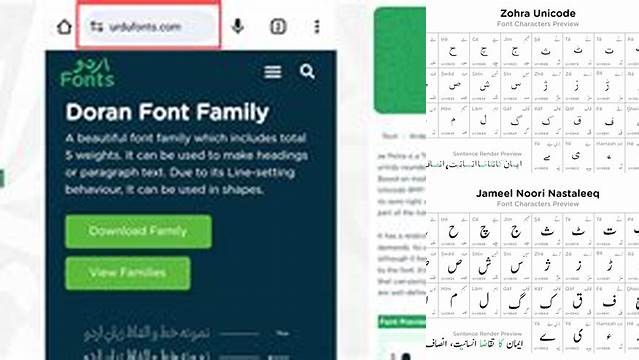
Free Urdu Fonts: Download The Best Typefaces Now!
Hey guys! Are you on the lookout for some amazing Urdu fonts for your projects? Well, you've landed in the right place! In this comprehensive guide, we'll dive deep into the world of Urdu fonts, exploring the best options available for free download. Whether you're a designer, a student, or simply someone who loves the beauty of the Urdu script, this article will provide you with all the information you need to enhance your creative endeavors. Let's get started!
Why Urdu Fonts Matter
Before we jump into the nitty-gritty of free downloads, let's take a moment to understand why Urdu fonts are so important. The Urdu language, with its rich literary and cultural heritage, is written in a beautiful script that adds a unique aesthetic appeal to any design. Choosing the right font can significantly impact the readability and overall visual appeal of your work. A well-chosen font can convey the intended message effectively, evoke emotions, and create a lasting impression on the audience. In essence, the font you select is the voice of your text, and in the case of Urdu, it’s a voice that carries centuries of history and artistic expression.
Moreover, Urdu is not just a language; it's an art form. The intricate curves and elegant strokes of the Urdu script make it a favorite among calligraphers and designers alike. A suitable font captures this essence, preserving the authenticity and charm of the language. Think about the impact of a beautifully designed Urdu title on a book cover or the elegance of an Urdu quote displayed in a digital graphic. The right font elevates the entire composition, making it more visually appealing and culturally resonant.
For those involved in publishing, web design, or graphic arts, having a diverse collection of high-quality Urdu fonts is essential. It allows for greater flexibility and creativity in projects, ensuring that the final product not only looks professional but also respects the linguistic and cultural nuances of the language. Whether you're designing a poster, creating a website, or writing a document, the font you choose can make or break the final outcome. Therefore, understanding the importance of Urdu fonts and having access to a variety of options is crucial for anyone working with the language.
Individual Designers and Foundries: Many independent designers and foundries offer free fonts as a way to showcase their work. Websites like Behance and Dribbble can be great places to discover these hidden gems. By supporting independent creators, you not only get access to unique fonts but also contribute to the growth and diversity of the design community. When downloading from individual sources, make sure to check their licensing terms carefully.
When exploring these resources, it's a good idea to have a clear idea of what you're looking for. Do you need a font for headlines, body text, or decorative purposes? Are you aiming for a traditional or modern look? Having a specific goal in mind will help you narrow down your search and find the perfect font for your project.
Popular Urdu Fonts for Free Download
To get you started, let's take a look at some popular Urdu fonts that are available for free download. These fonts are widely used and appreciated for their readability, aesthetic appeal, and versatility. Whether you're designing a website, creating a poster, or working on a literary project, these fonts can add a touch of elegance and authenticity to your work.
1. Nafees Nastaleeq
Nafees Nastaleeq is arguably one of the most widely used and respected Urdu fonts. It's a classic Nastaleeq font, known for its elegant curves and traditional calligraphic style. This font is perfect for formal documents, literary works, and any project that requires a touch of sophistication. Its intricate design makes it ideal for headlines and titles, but it can also be used for body text with proper kerning and spacing.